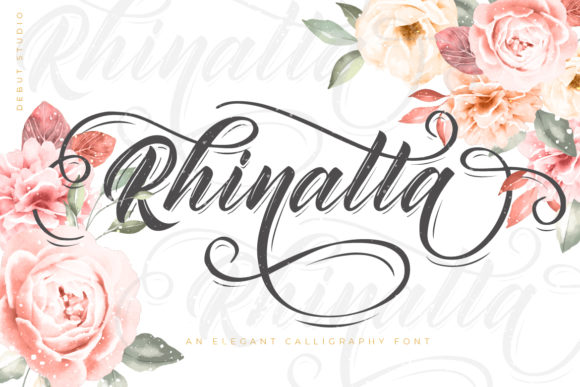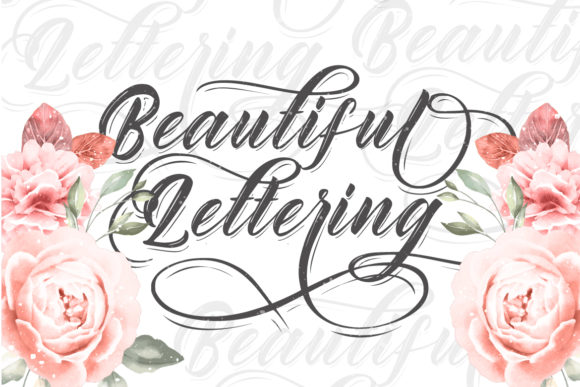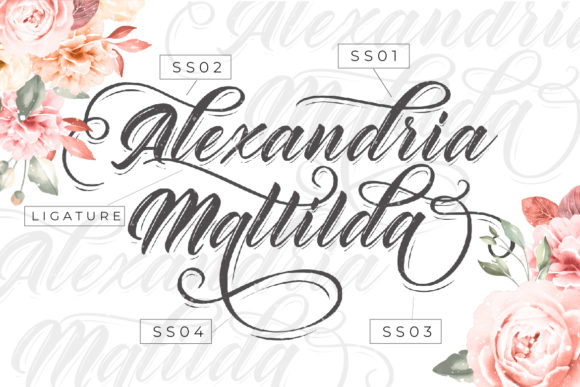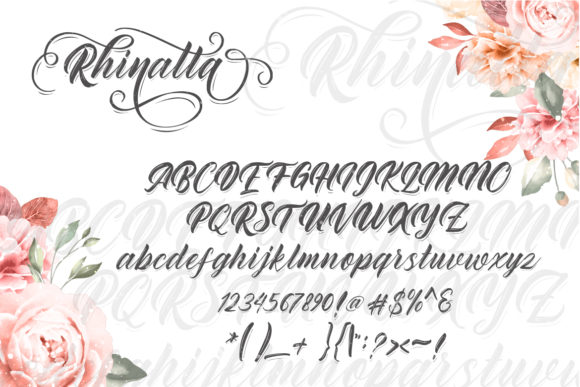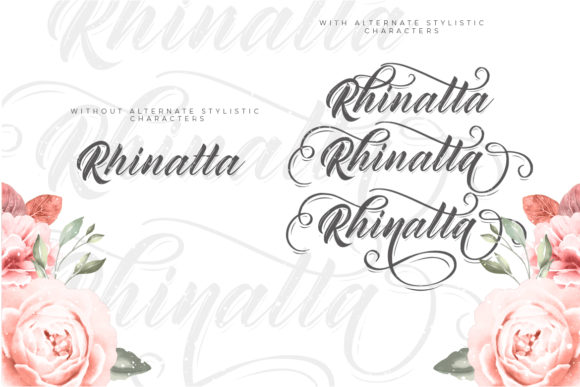
Rhinatta Font
About Rhinatta Font
Rhinatta is an authentic cute script font. It has amazing swashes and beautiful alternates that will give your designs an incredible look!